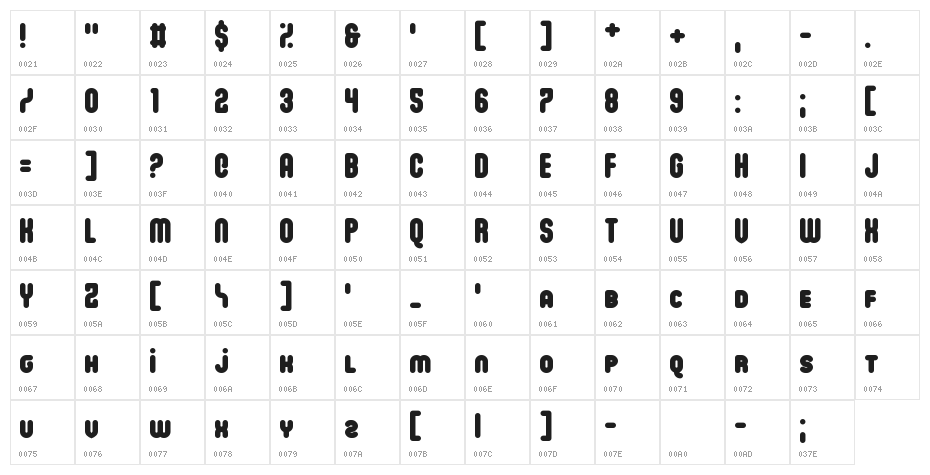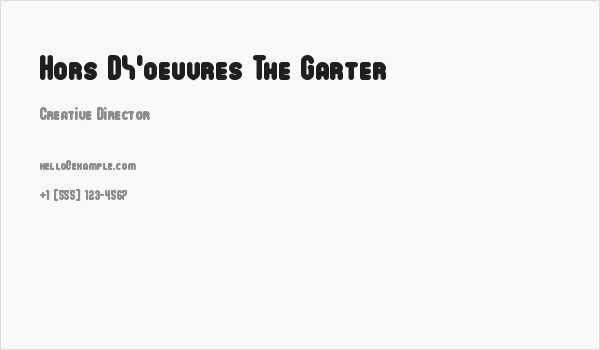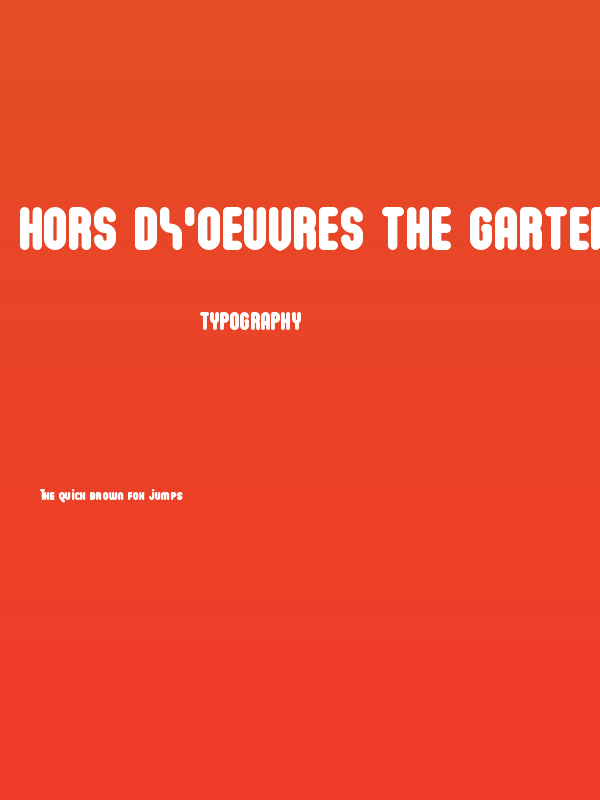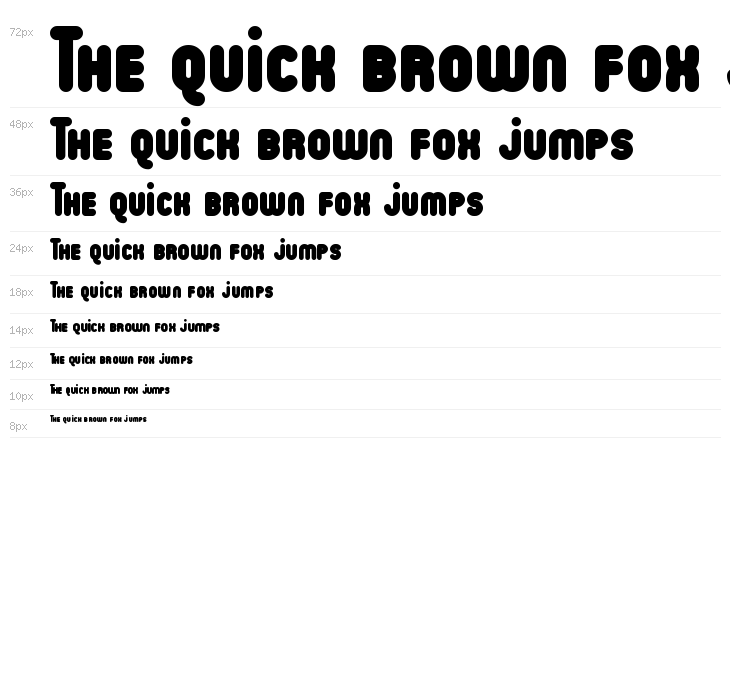
Hors D'oeuvres The Garter Font
Hors D'oeuvres The Garter Description
This font features a bold and rounded style, characterized by its thick, uniform strokes and smooth curves. The letters are designed with a playful and modern aesthetic, making them stand out with a strong visual presence. The uppercase and lowercase letters maintain a consistent weight, contributing to a cohesive look. The numbers and special characters follow the same design principles, ensuring uniformity across all elements. The font's rounded edges and lack of sharp angles give it a friendly and approachable feel, suitable for various creative applications.
| Proposed Projects | Ideal for branding, posters, packaging, and any project requiring a bold and friendly typeface. |